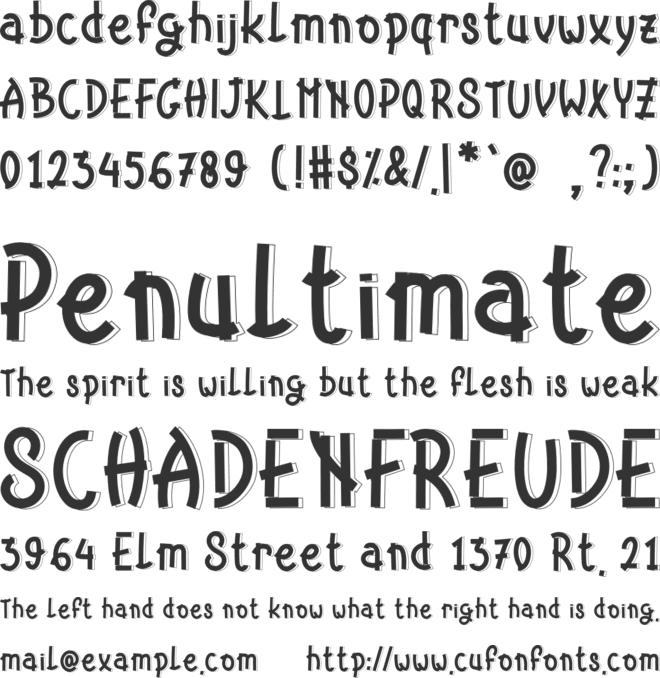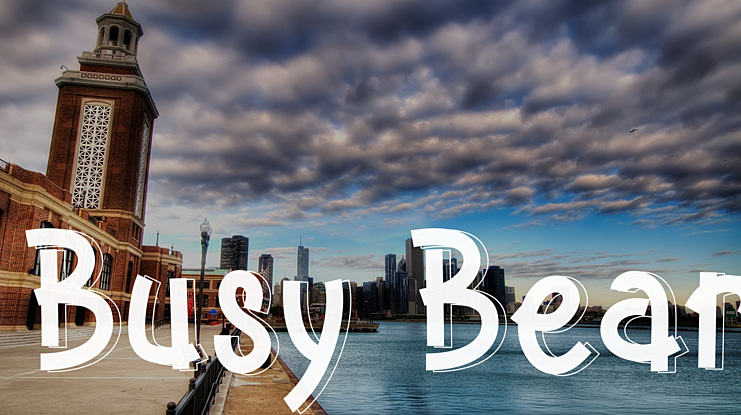
Busy Bear Font
It’s a unique and elegant font. Looks great on wedding invitations, greeting cards, billboards, logos, business cards, and any other design that requires a handwritten touch. This font features a varied baseline, handcrafted that creates spectacular creations and will make your designs look more realistic.